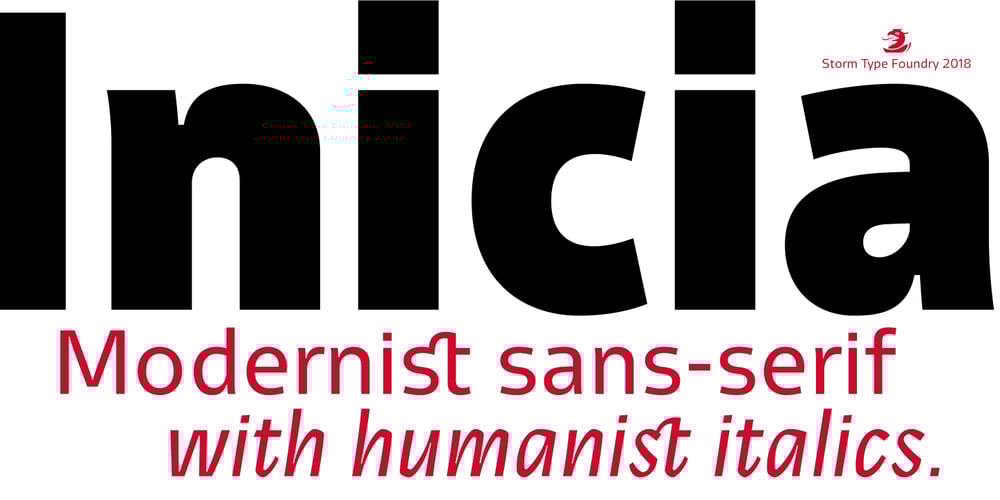
Inicia Font Family was designed by František Štorm and published by Storm Type Foundry. Inicia contains 10 styles and family package options. A retro-style can be regarded as lack of original contemporary ideas. But also as passion for nostalgic time-traveling. Everyone wants to return to their youth at least for a moment. Inicia was one of my first designs (hence the name) from the mid-eighties. The original drawing was never finished because there were too many similar typefaces around. After three decades the shapes of the old designs suddenly became tempting to finish. Now restored and completed at Storm Type Foundry.